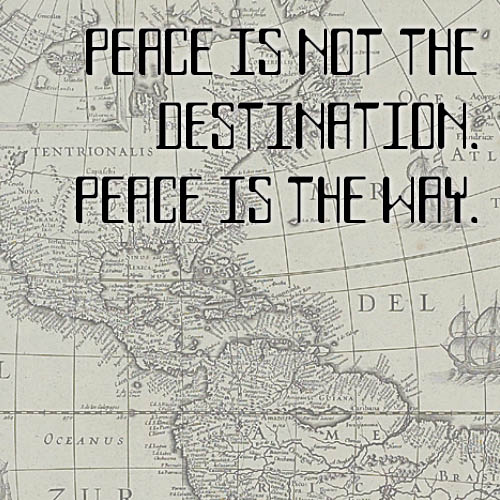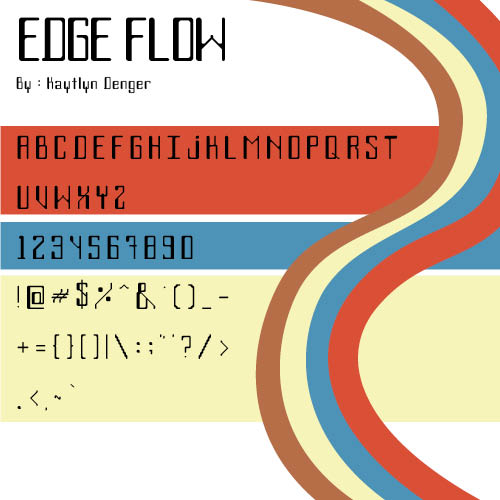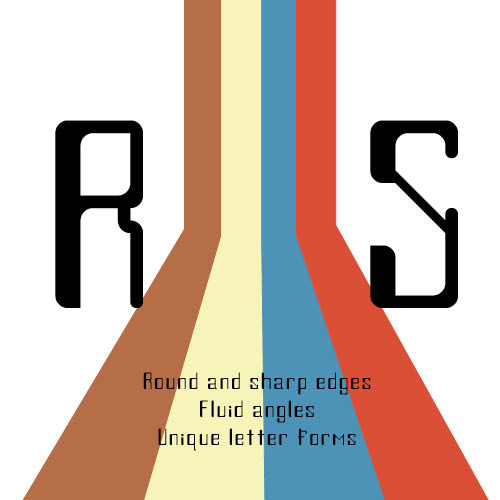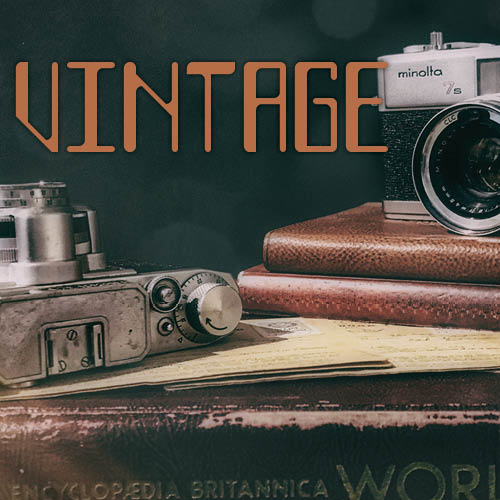
• Edge flow is a bold, retro-inspired typeface that combines the best of sharp precision and fluid curves. The fonts unique design deatures a mix of angular, sharp corners and smooth, curved edges, creating adynamic flow that feels both vintage and forward-thinking. Its distinct characteristic is the thicker left vertical strokes, adding weight and emphasis to each letterform, which creates a strong sense of structure and movement. Perfect for projects seeking to evoke a nostalgic yet modern vibe, Edge Flow is ideal for headlines, branding, and designs that need to make a bold, unforgettable statement.